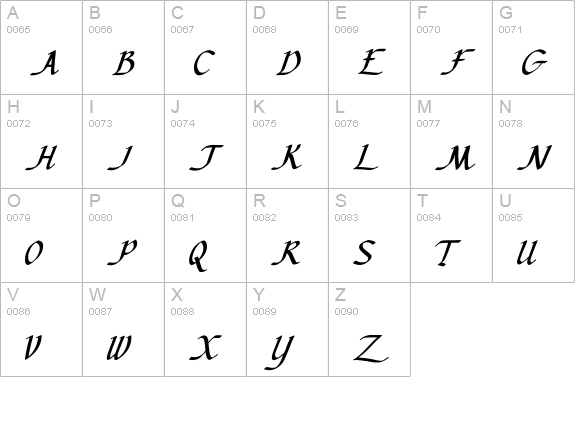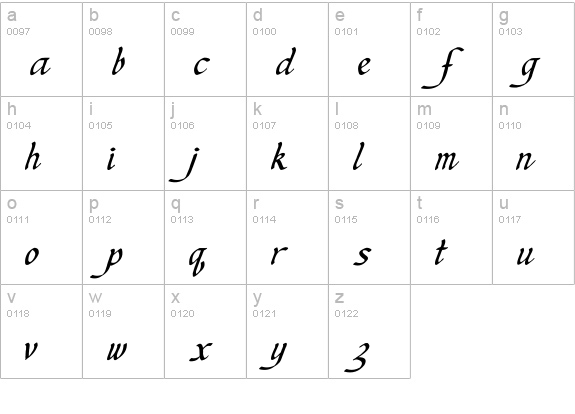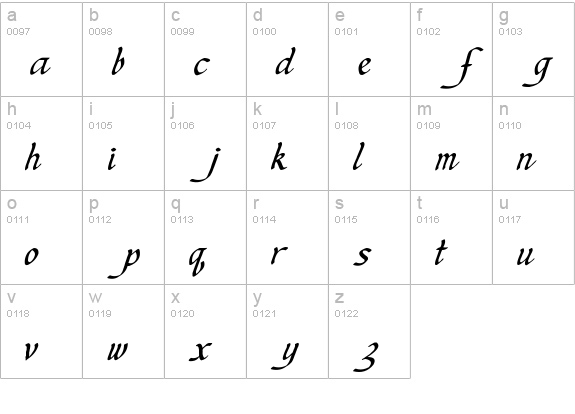
Ken's Calligraphic Font Details
Ken's Calligraphic font is a stunning display of elegance and beauty, perfect for adding a touch of sophistication to your projects. With its flowing lines and intricate details, this font captures the artistry of traditional calligraphy in a modern and stylish way. Each letter is meticulously crafted to create a harmonious blend of classic and contemporary design. One of the best things about Ken's Calligraphic font is that it is completely free to download at FontsMarket.com. Whether you're working on invitations, branding, or any other creative project, this font will elevate your work to a whole new level. Its versatility allows it to be used in a variety of contexts, from formal events to artistic endeavors. Experience the timeless beauty of Ken's Calligraphic font and bring a touch of sophistication to your designs today. Download it for free at FontsMarket.com and let your creativity shine with this exquisite typeface.